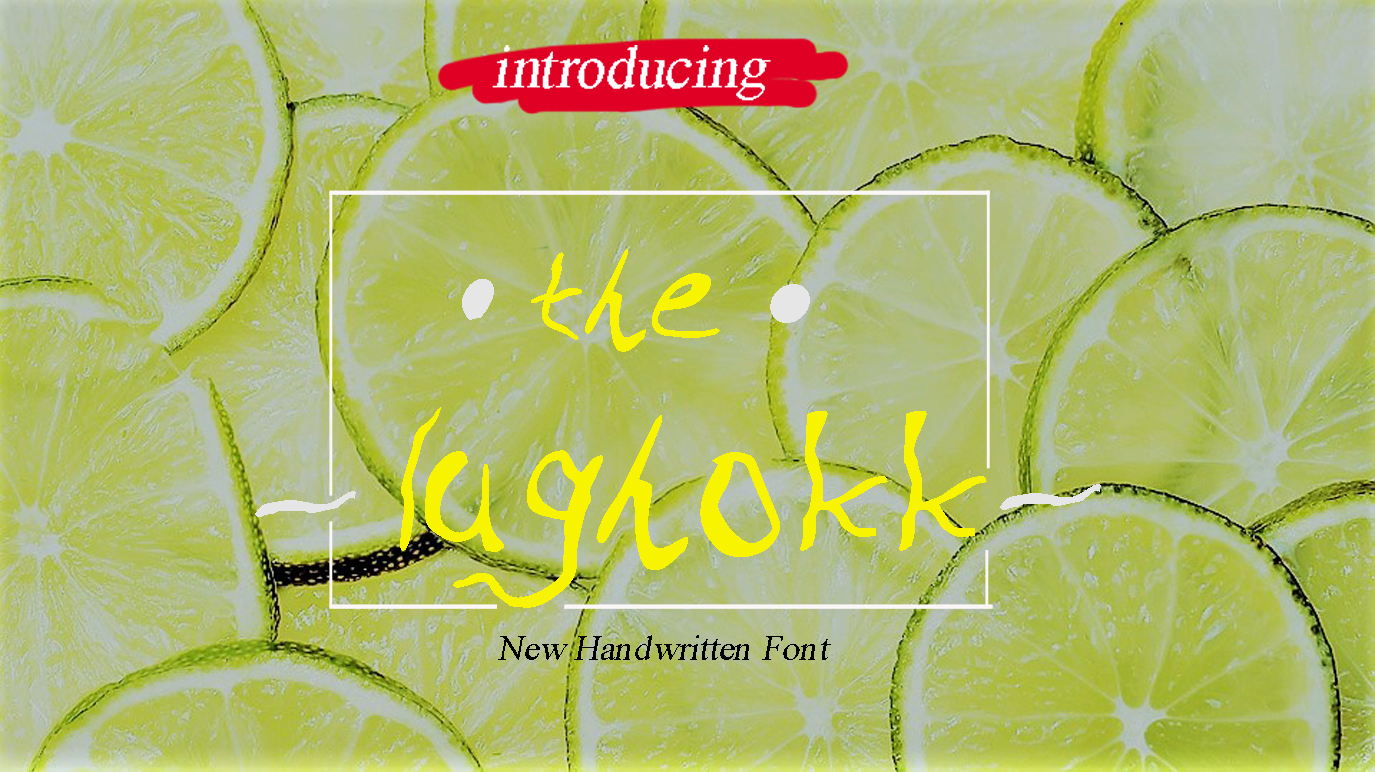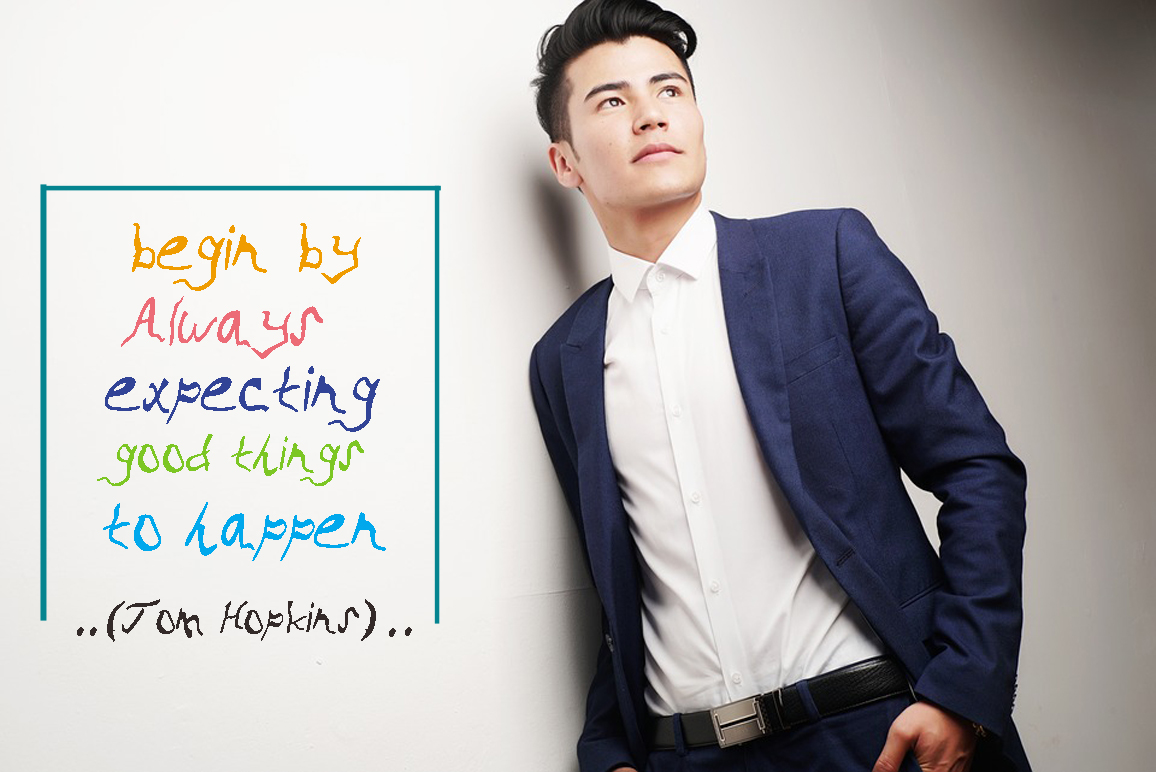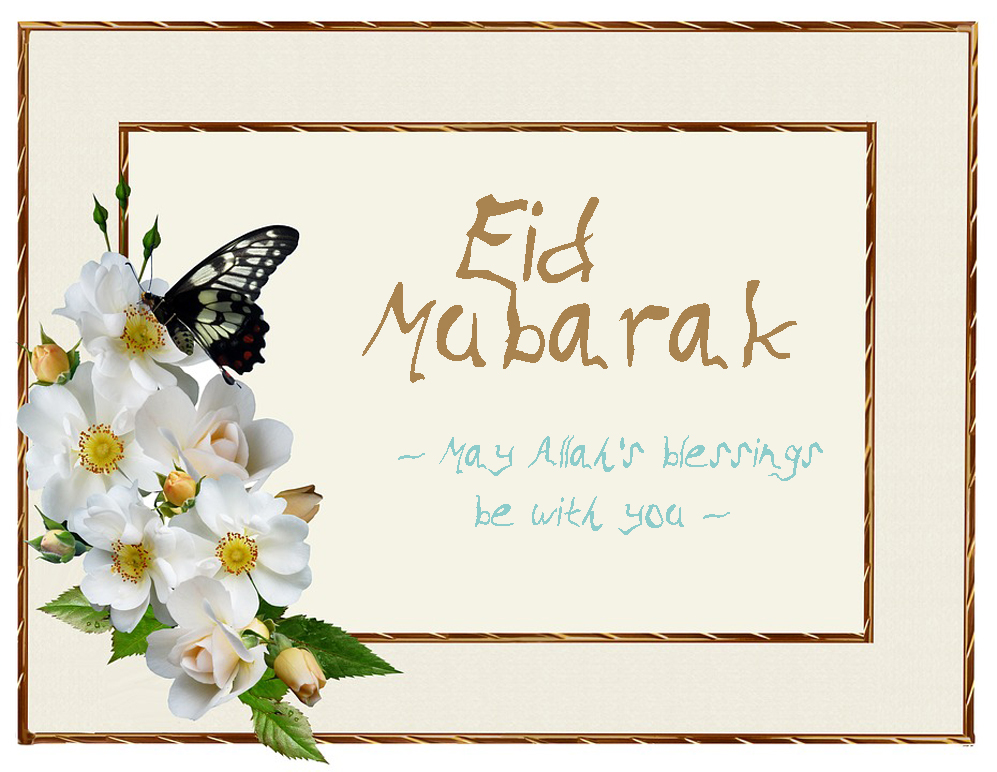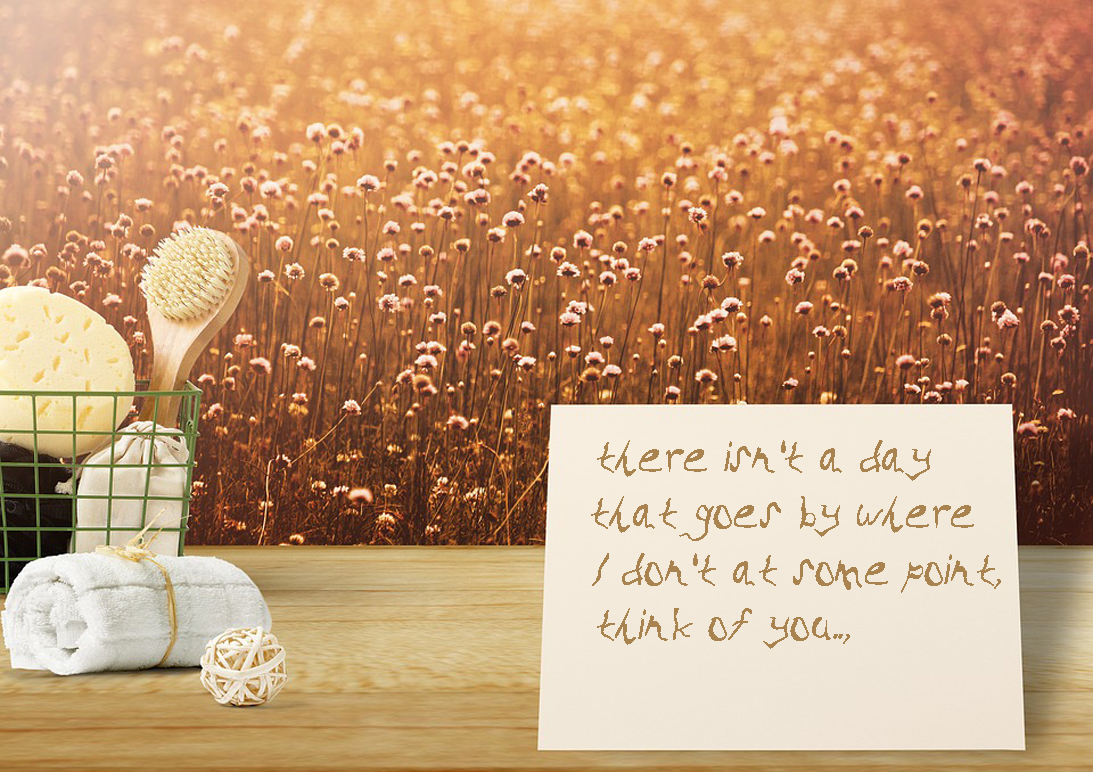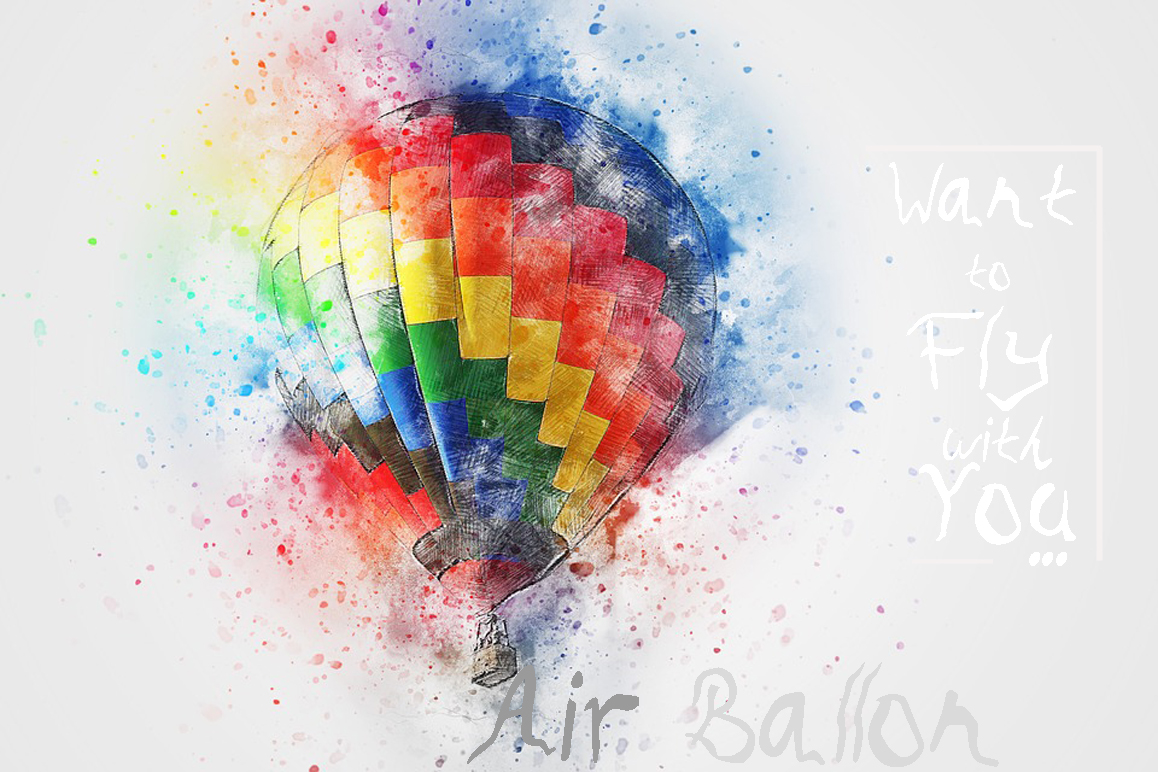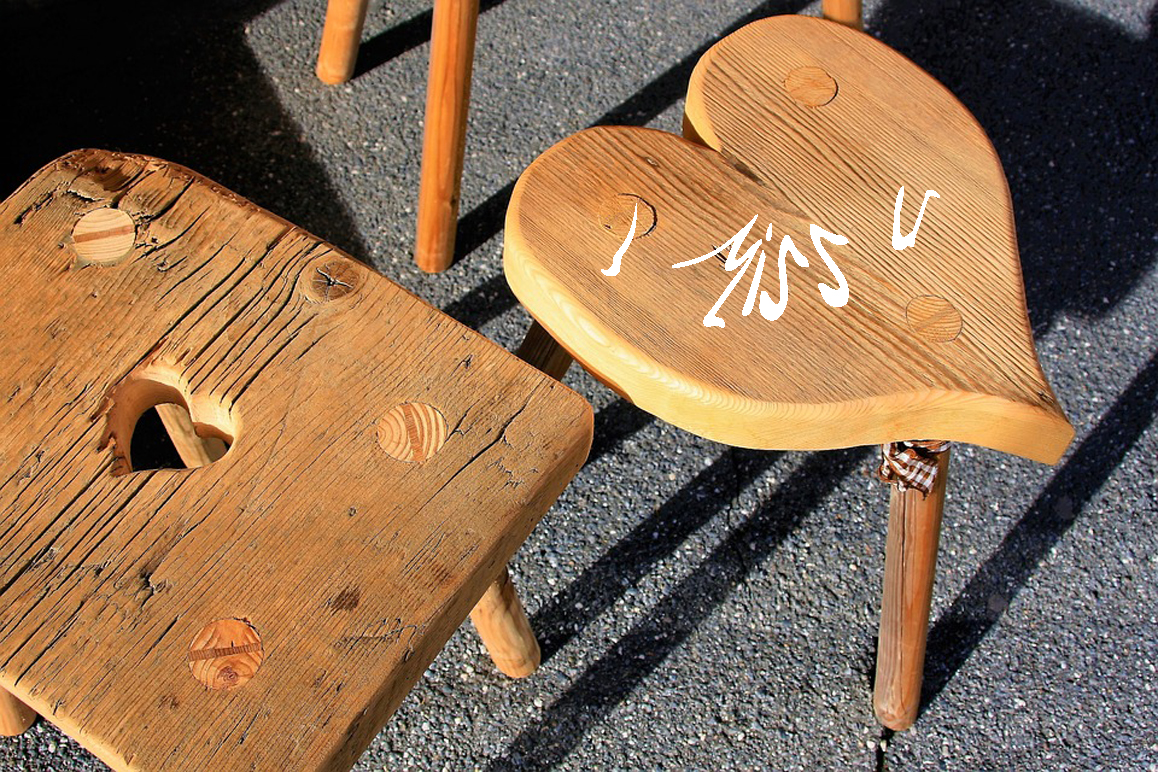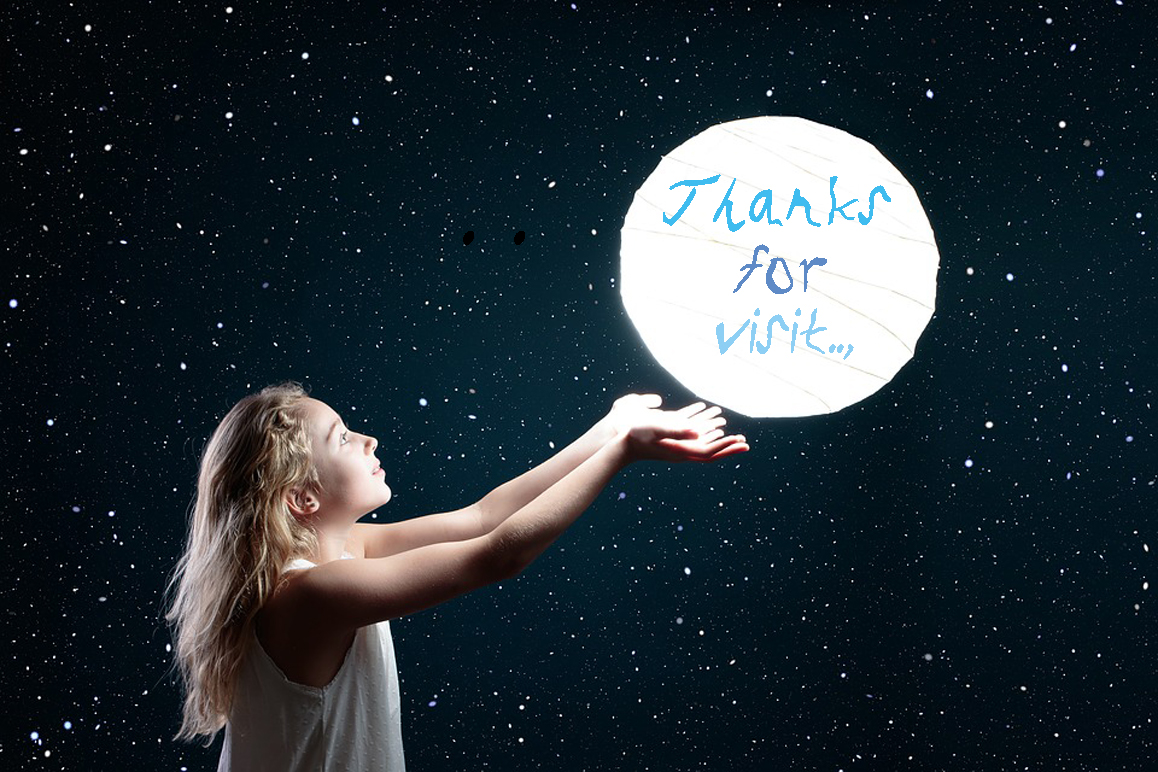
The Lughokk Font
About The Lughokk Font
The Lughokk is a fun and casual handwritten script, ideal for modern and youthful designs. This font functions well for headlines and displays, and can give your work an authentic and genuine feel.